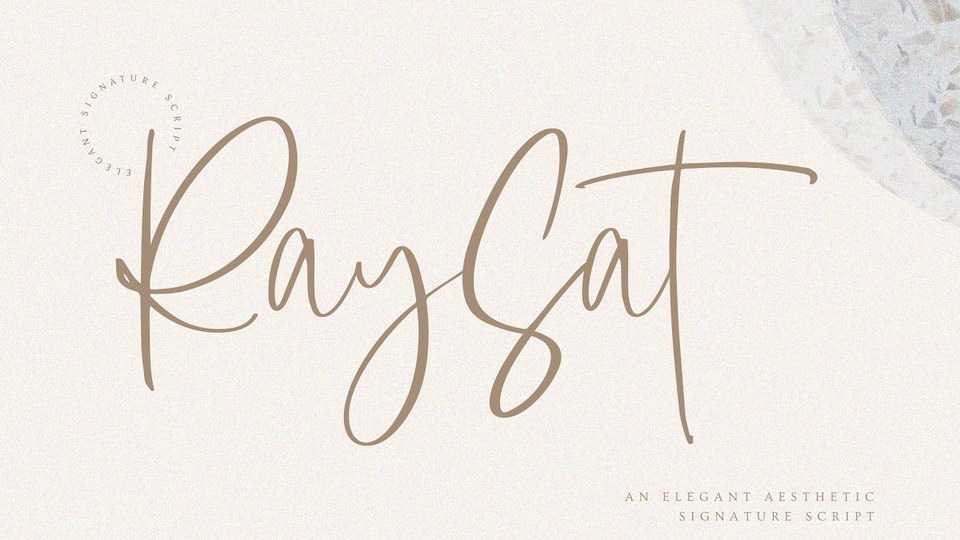
Download Raysat font, a magical handwritten script carefully created with a touch of elegance. Raysat features an incredibly classic style, while still keeping a friendly feel.
Designer: Mas Anis Studio